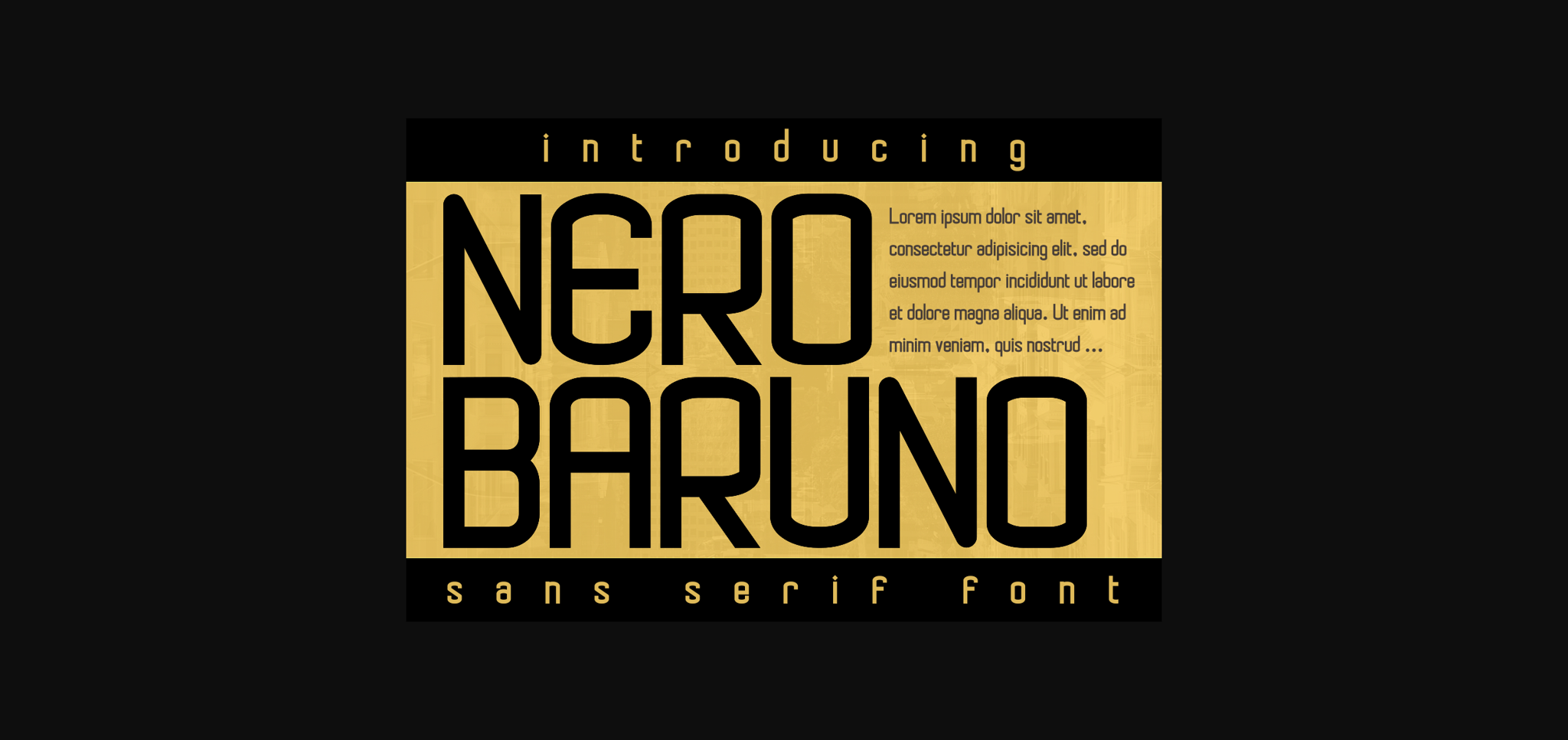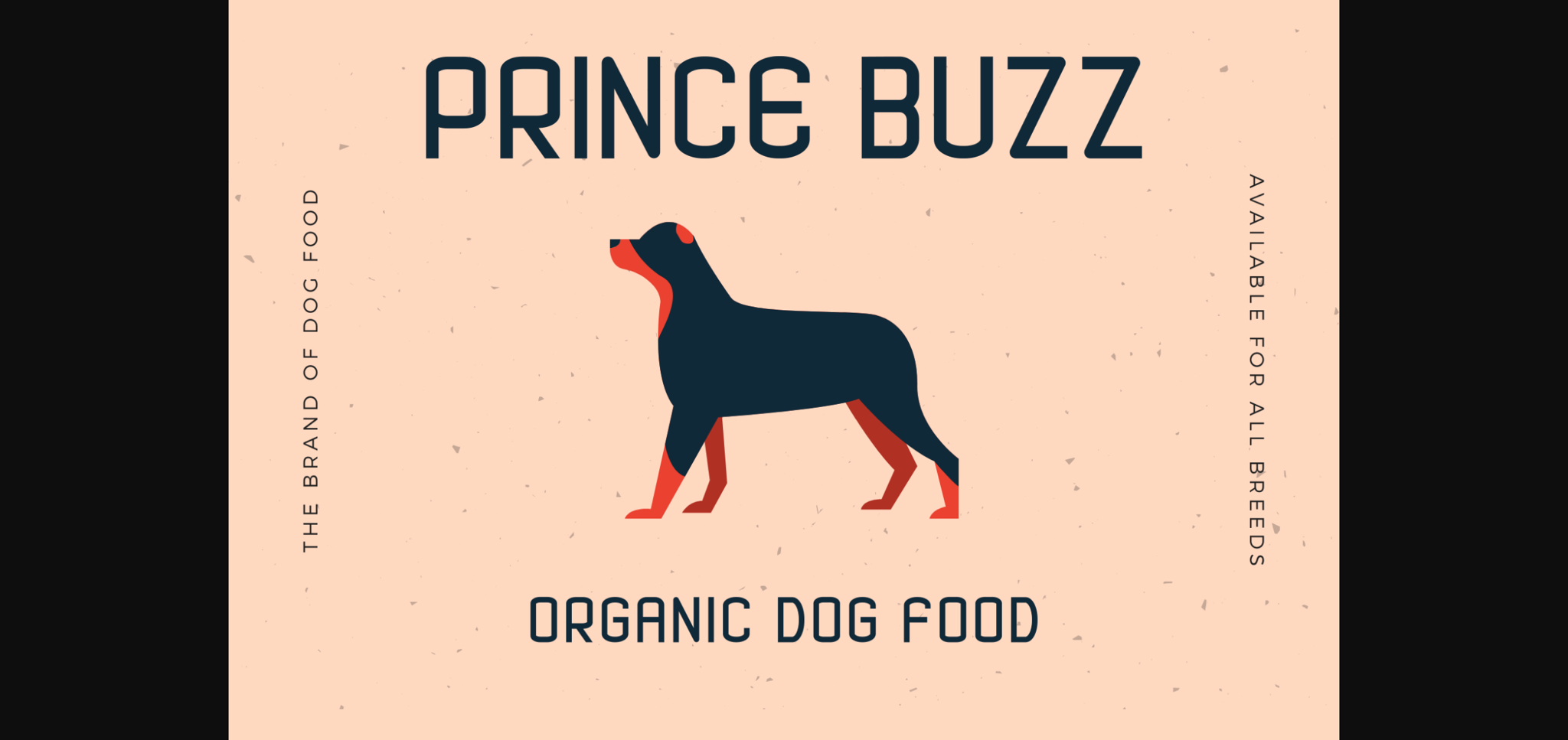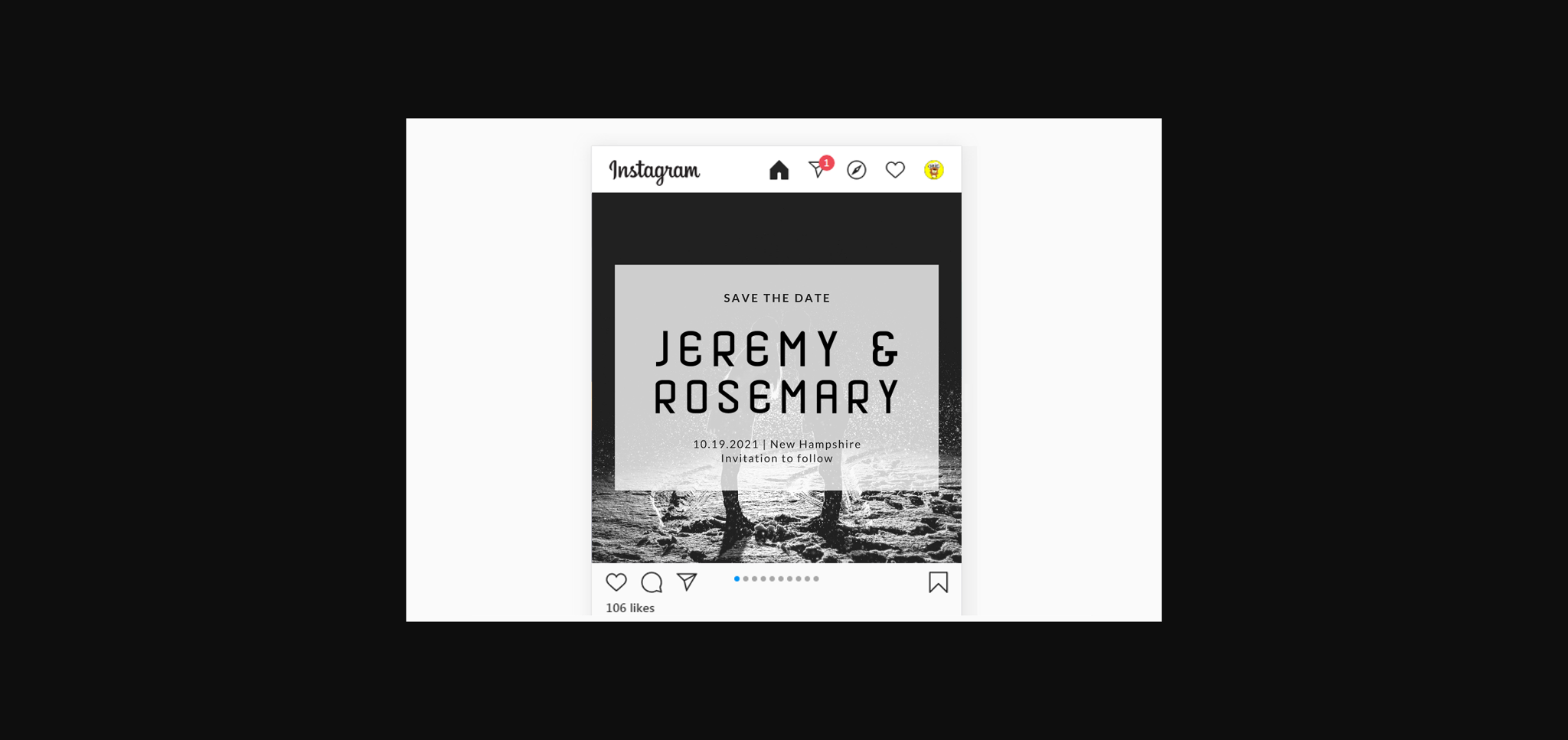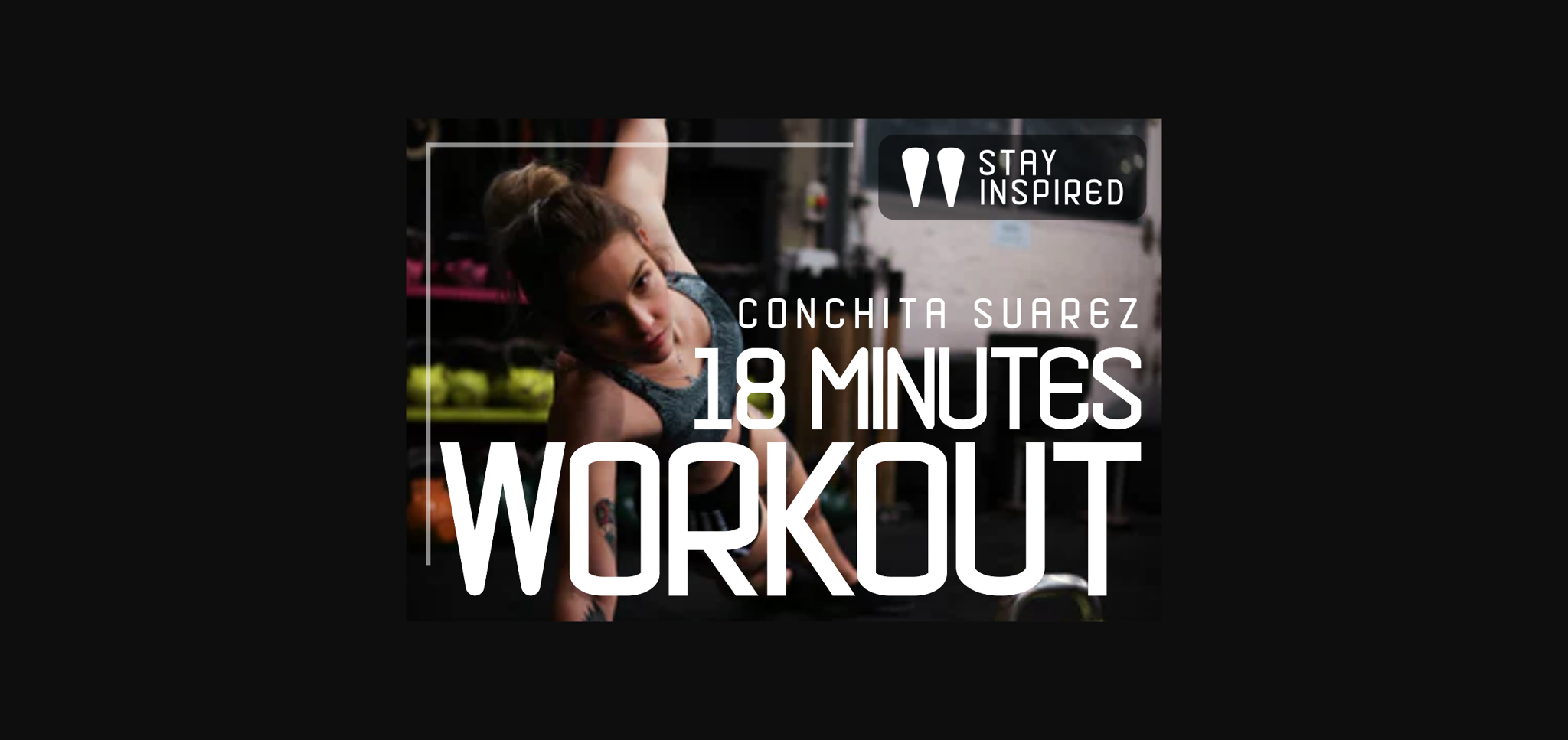
About Nero Baruno Font
Nero Baruno is a chunky lettered and neat sans serif font. It can easily be matched to an incredibly large set of projects, so add it to your creative ideas and notice how it makes them stand out!